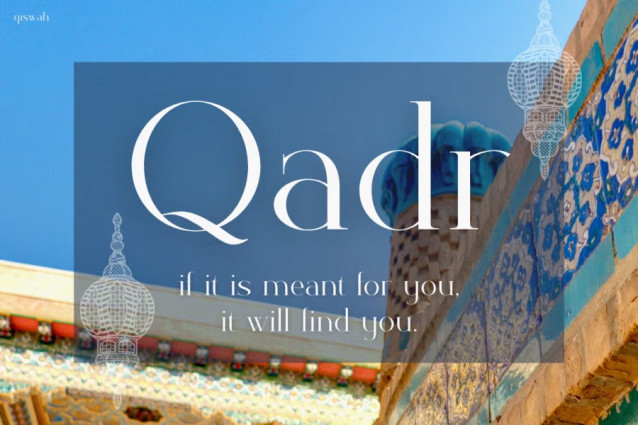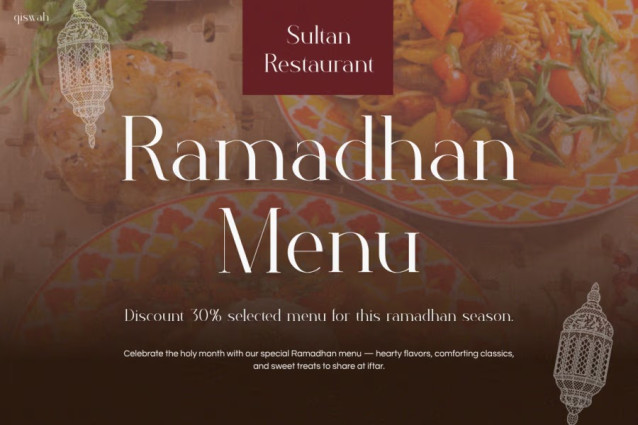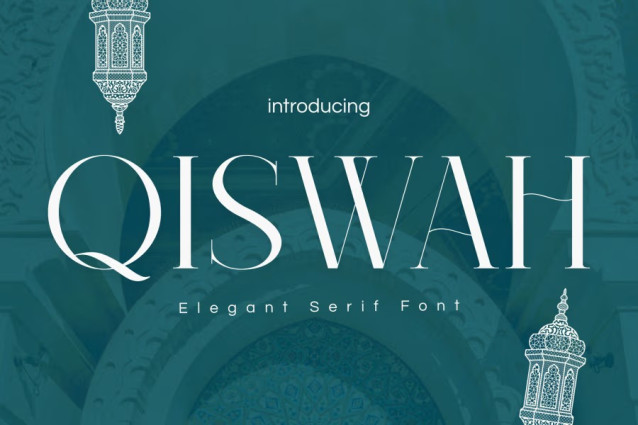
Qiswah Font is a timeless serif font that effortlessly combines sophistication with spiritual depth. From the very first glance, it captivates with refined letterforms, high-contrast strokes, and graceful curves that evoke both modern luxury and cultural heritage. Moreover, each detail is crafted to achieve perfect balance—creating harmony between elegance and emotion. As a result, this font instantly elevates any design, whether it’s a Ramadan greeting, inspirational quote, or luxury branding.
Unlike many other serif fonts, Qiswah stands out for its poetic beauty and delicate rhythm. Its tall, slender proportions convey confidence, while its subtle decorative edges bring a touch of tradition. Consequently, it feels both modern and timeless. Whether you’re designing social media posts, product packaging, or wedding invitations, Qiswah transforms ordinary text into a visually engaging experience that draws the viewer’s eye naturally.
Perfect For Designers Who Value Elegance and Harmony
Instagram Font Qiswah is ideal for creators who appreciate understated luxury and meaningful design. In particular, it suits:
Brand designers who want to create refined product logos or packaging for perfume, fashion, or jewelry labels.
Social media creators seeking to design captivating Ramadan, Eid, or inspirational quote posts that align with serene aesthetics.
Wedding and event planners looking to design elegant invitations or signage with a modern yet spiritual essence.
Content creators aiming to maintain a polished, cohesive Instagram or Pinterest feed with a minimal yet sophisticated tone.
Additionally, Qiswah performs beautifully across both digital and print formats. Therefore, it’s perfect for maintaining elegance and clarity in any medium—from screen to paper.
A Font That Elevates Every Creation
Ultimately, Instagram Font Qiswah is more than just a typeface—it’s an expression of grace and purpose. With every stroke, it invites calmness, balance, and confidence into your design. Furthermore, its elegant serif structure ensures that your words carry weight, meaning, and emotion. If you’re searching for a font that merges cultural beauty with contemporary charm, then Qiswah is your perfect design companion. Let your creations speak with elegance, and let Qiswah be the voice behind them.